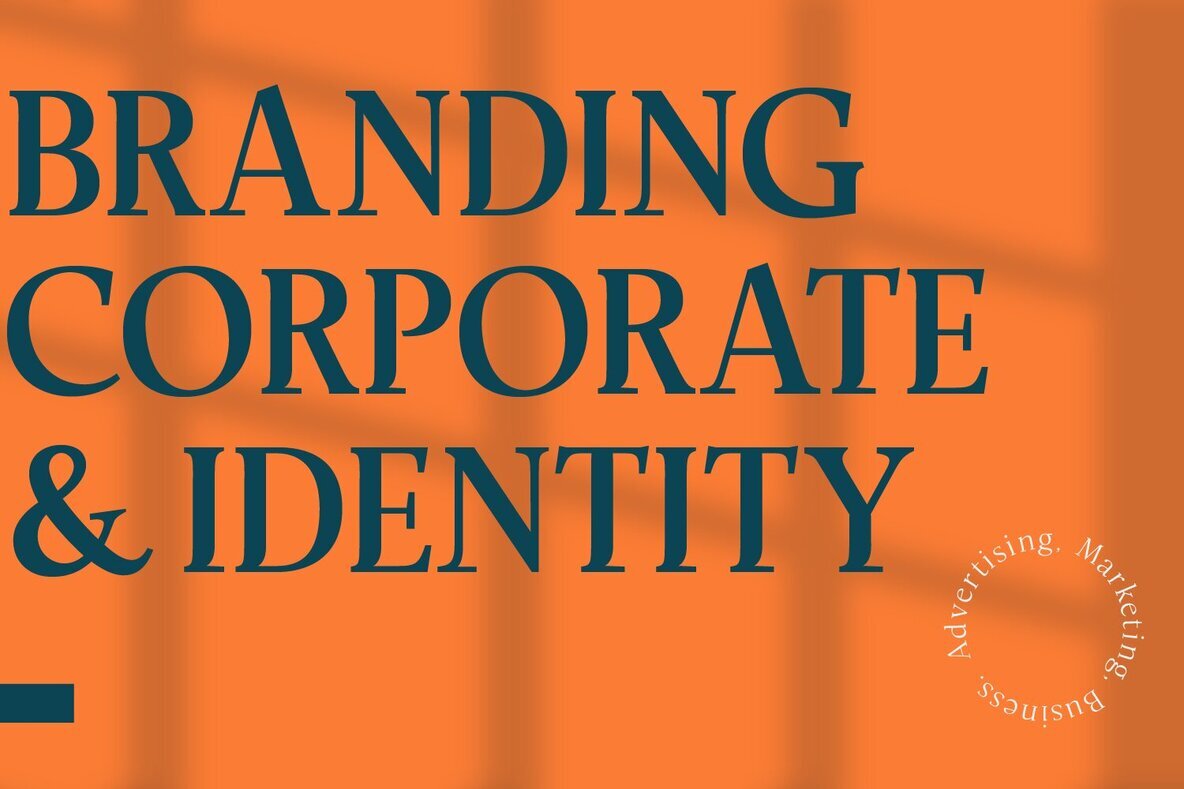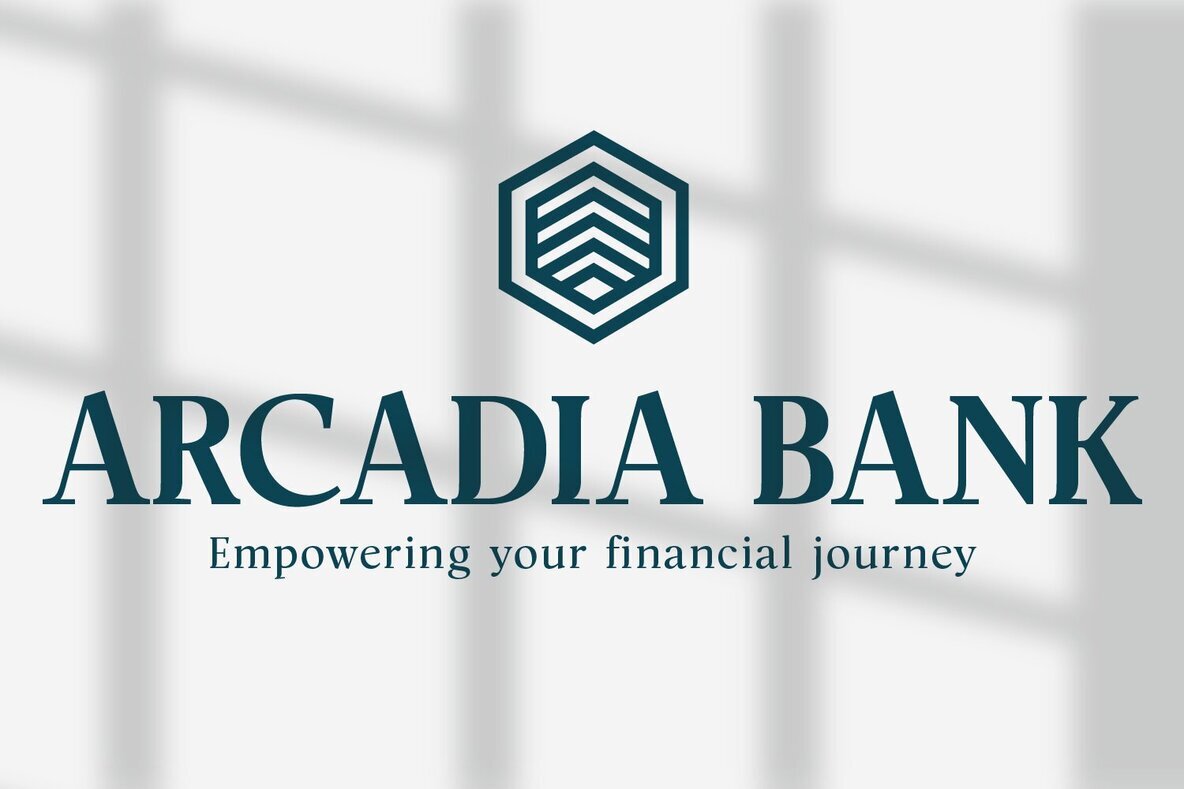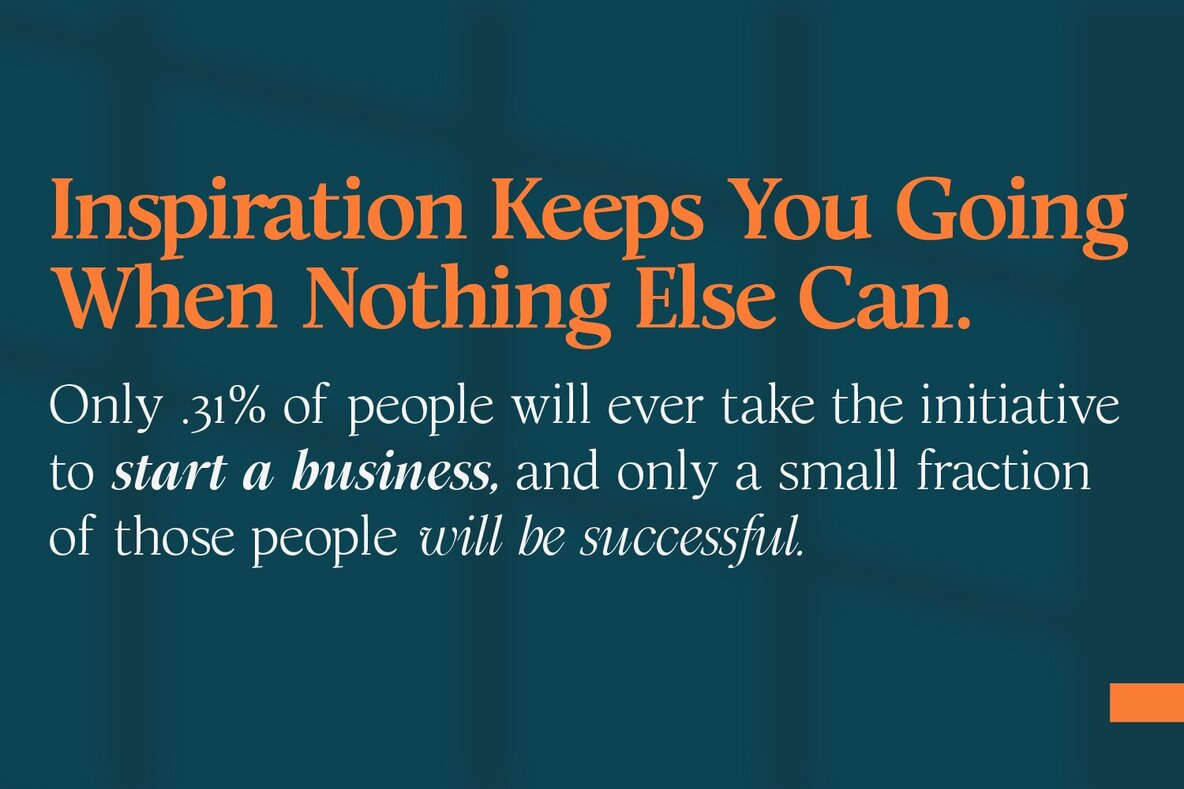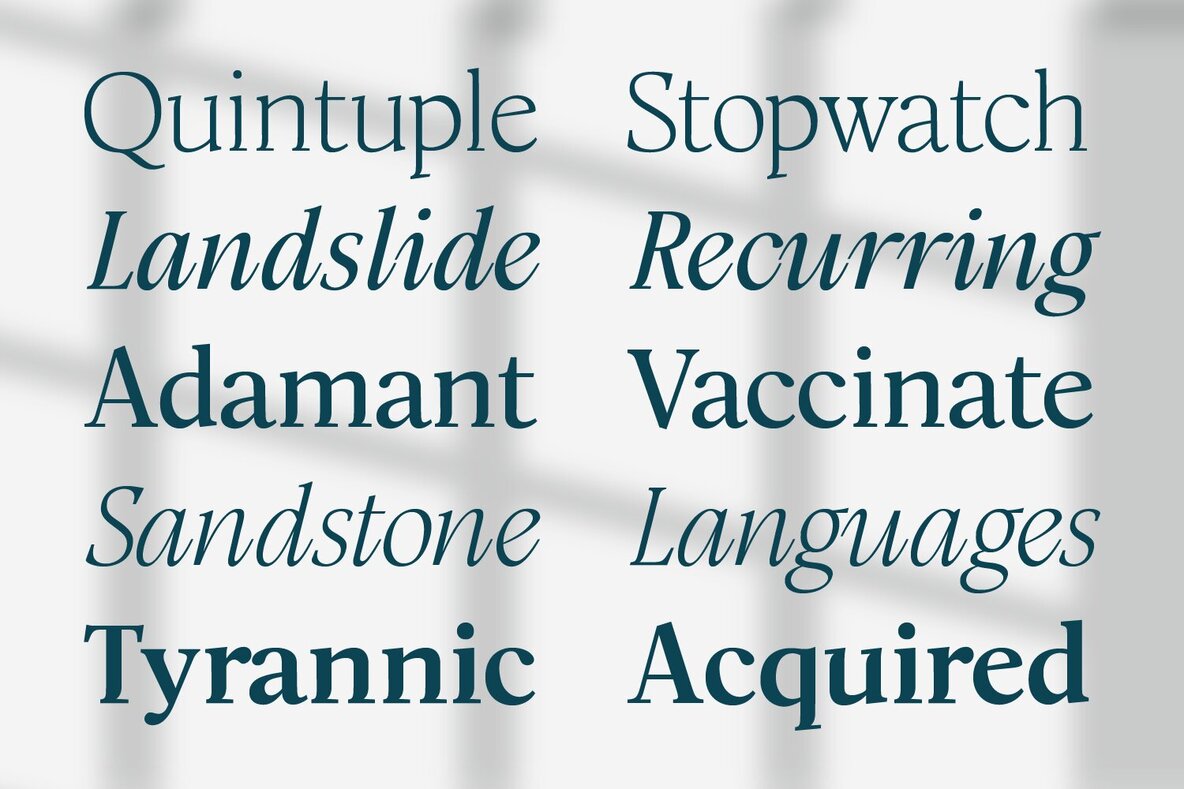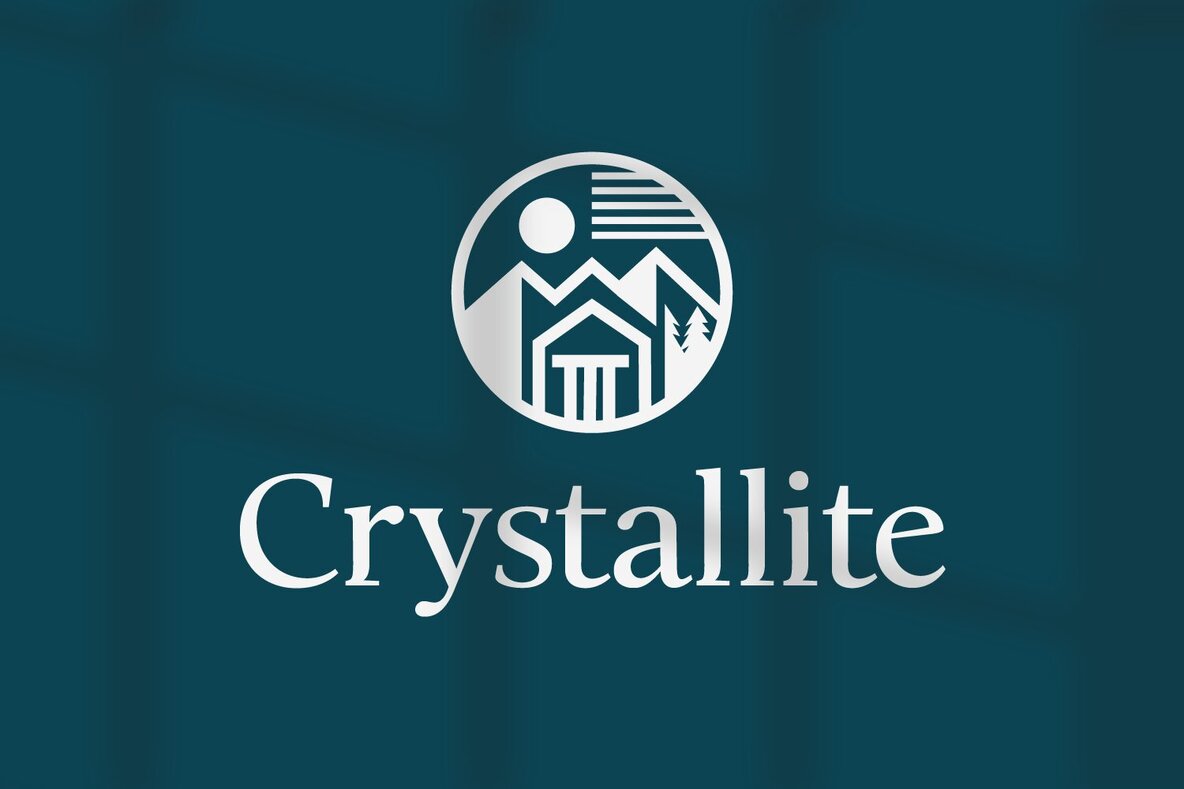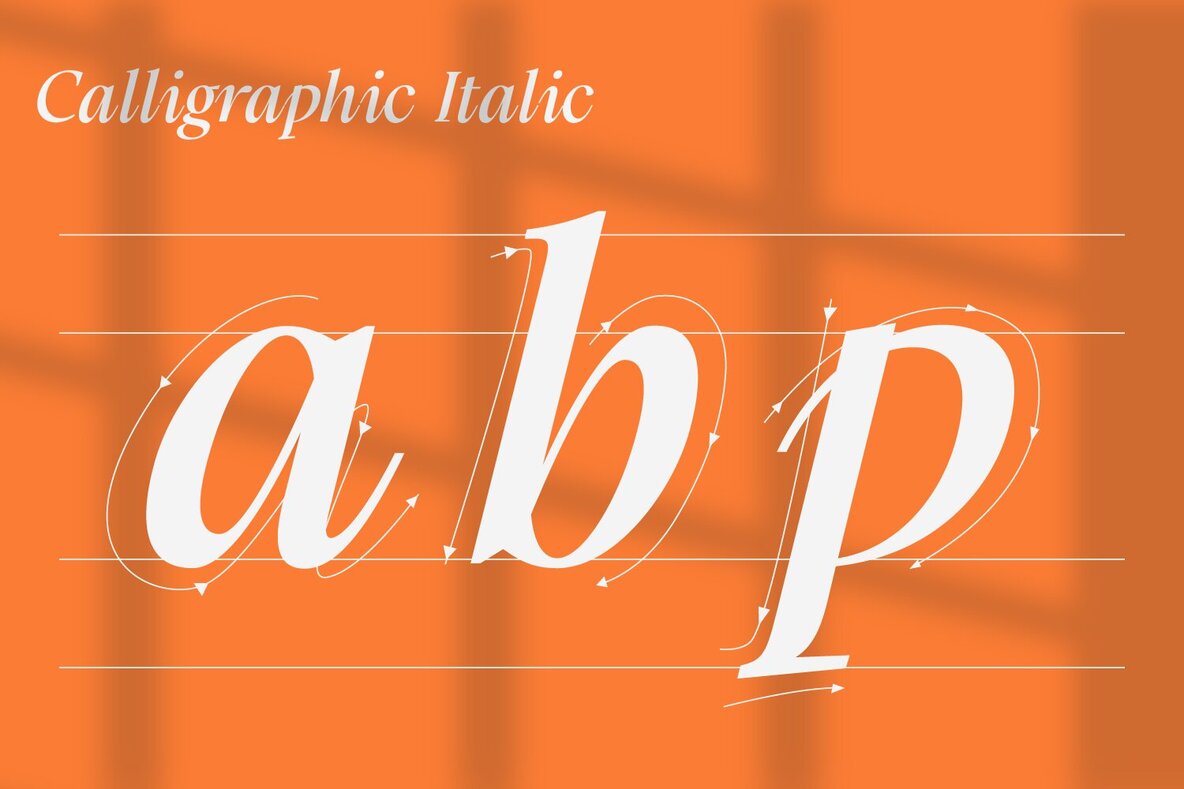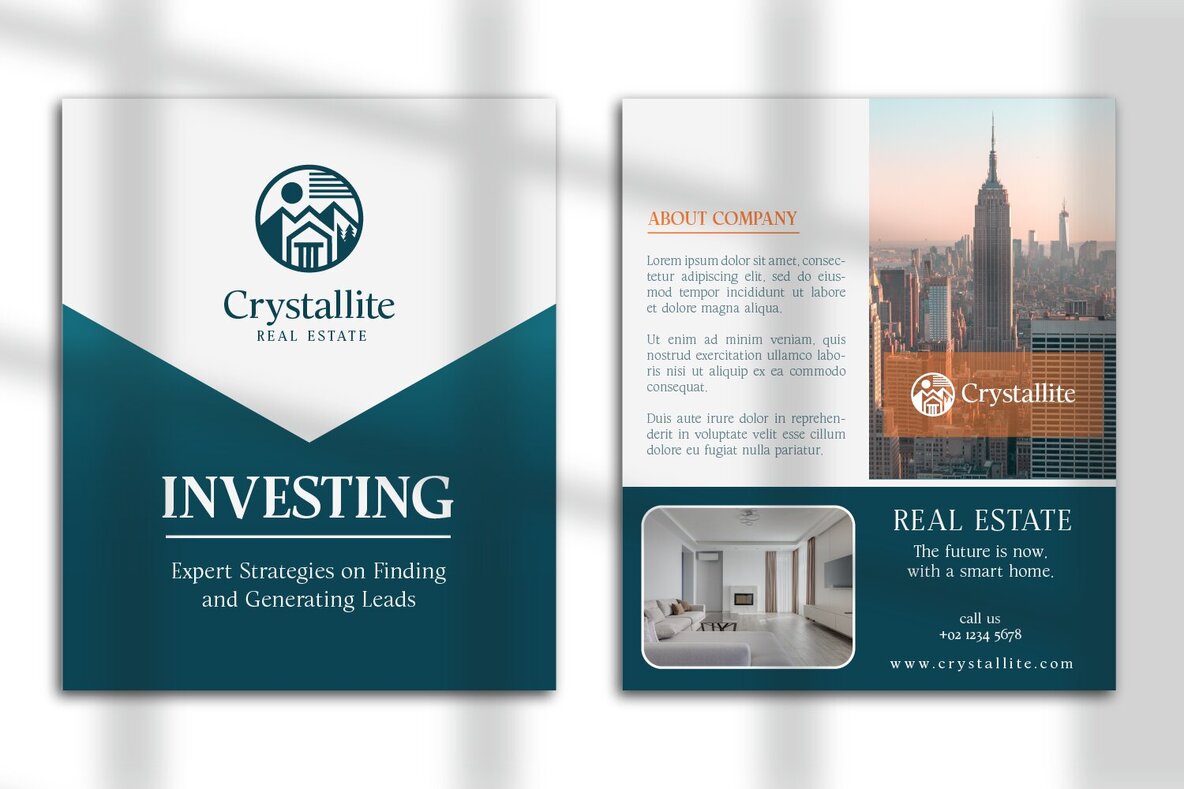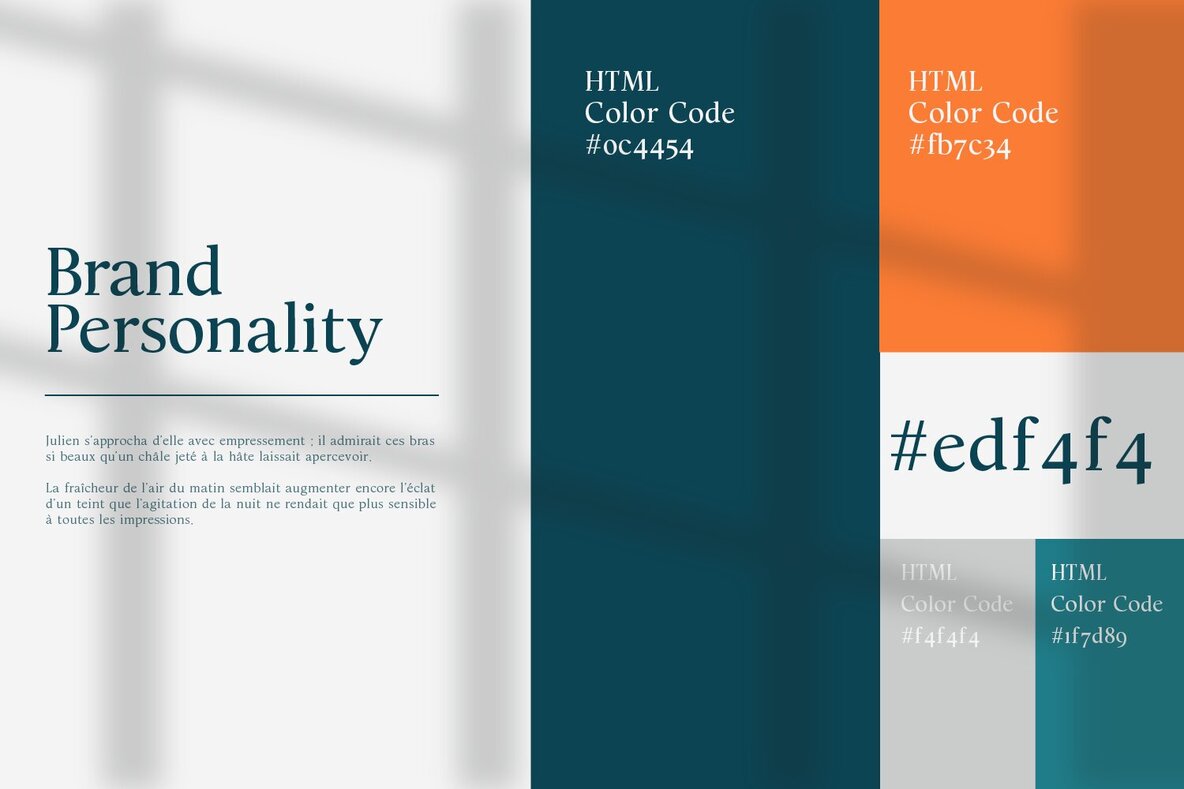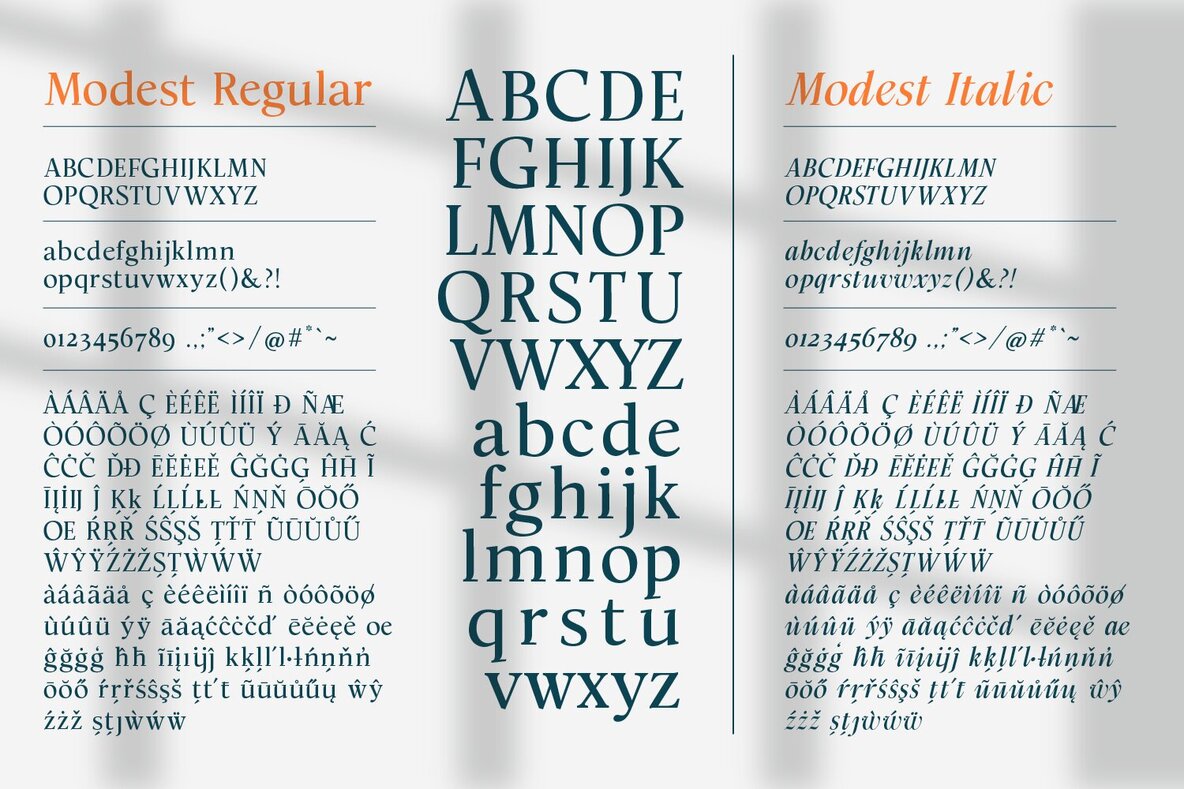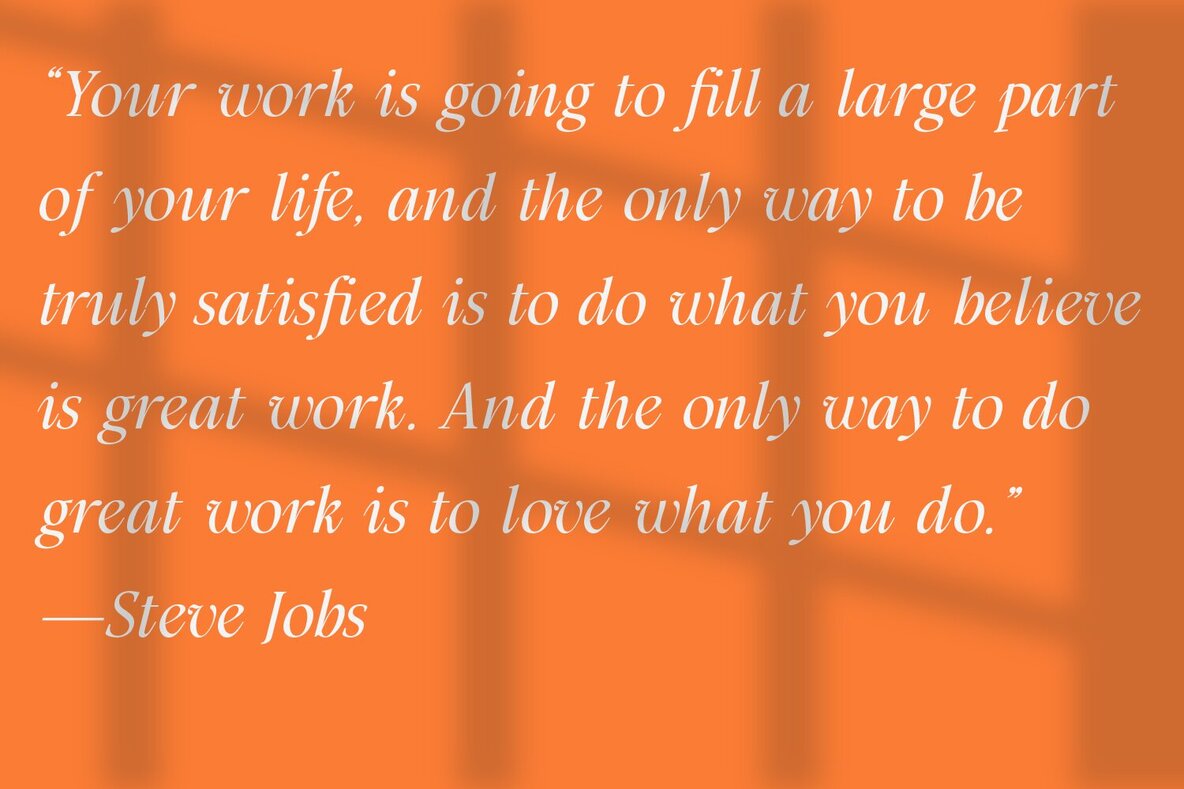
Modest Font
"Modest" is a refined Humanist transitional serif typeface designed by Faldykudo, offered as a comprehensive Latin Pro family with a total of 14 styles, ranging from Thin to Bold and each weight also comes with a matching calligraphic italic. Drawing on the rich tradition of Humanist letterforms, "Modest" features balanced proportions and moderate contrast between thick and thin strokes, contributing to its legitimacy and timeless appeal. A standout attribute of "Modest" is its matching calligraphic italic styles. These italics are not only slanted versions of the upright form; they are true calligraphic creations, showcasing fluid strokes and graceful curves that enhance the typeface's overall expressiveness. These styles ensure that "Modest" is highly versatile, and suitable for diverse applications such as editorial design, branding, advertising, and digital interfaces. The typeface family includes advanced typographic features such as ligatures, small caps, and old-style figures, enriching the design options available to users. "Modest" supports a wide range of languages and includes extensive diacritics, making it a reliable choice for multilingual typesetting. The attention to detail and the harmonious blend of traditional and modern elements make "Modest" a sophisticated choice for designers seeking a typeface that offers both elegance and practicality.